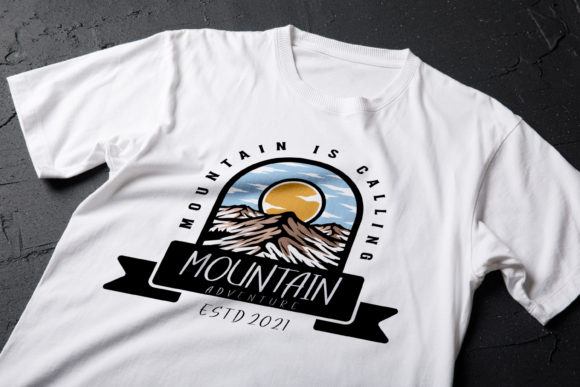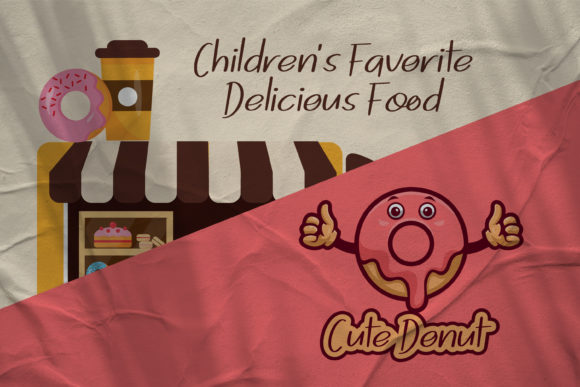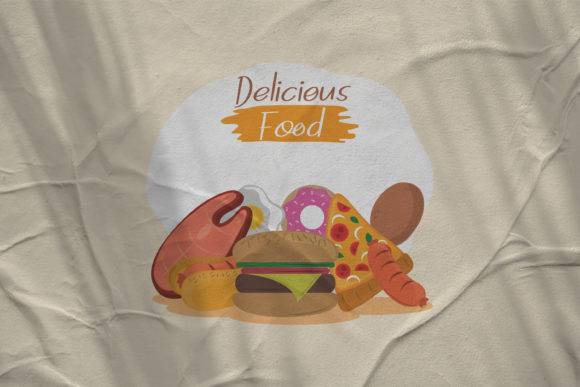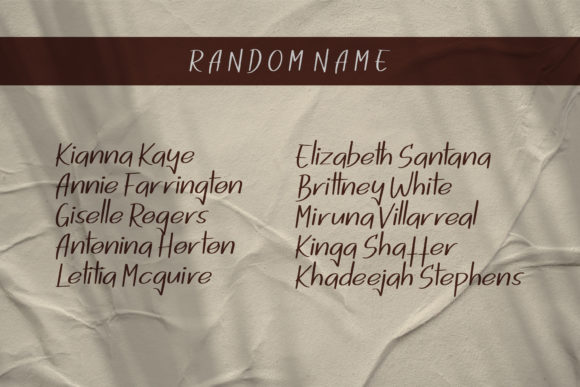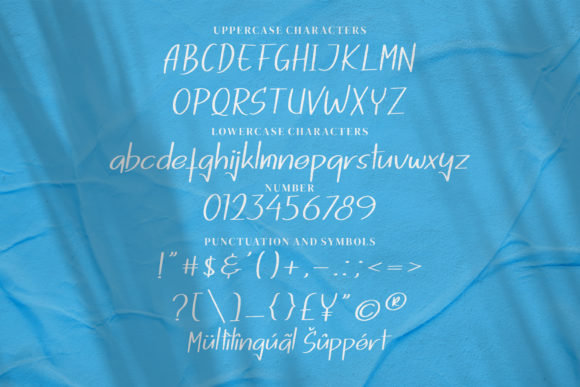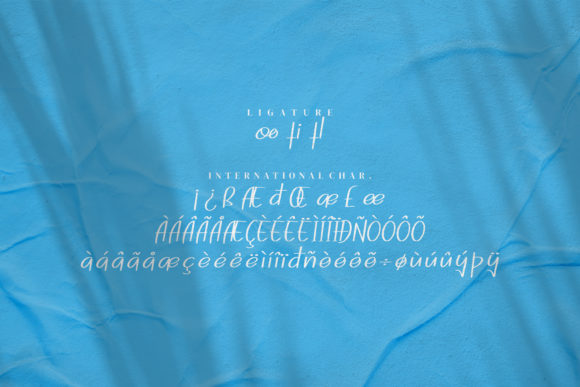
Introduction to Dogina Summer Font
Dogina Summer is a simple, friendly and adaptable display font.
Whether you use it for cartoon related designs, children games or just any creation that requires a lovely touch, this font will be an amazing choice .
Key Features of Dogina Summer Font